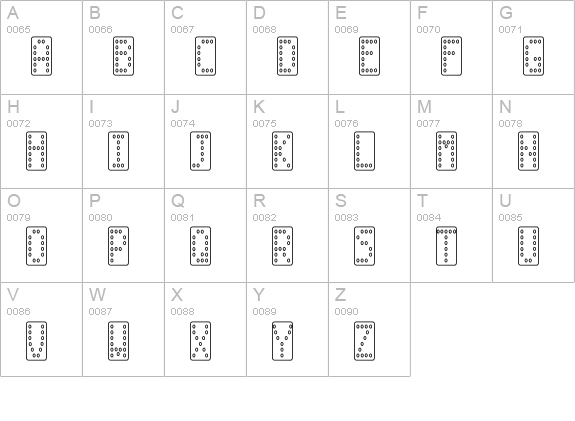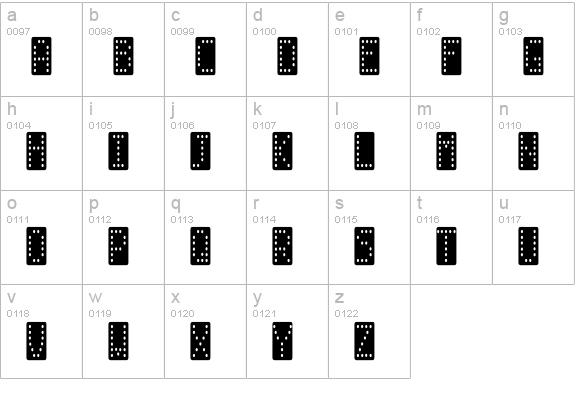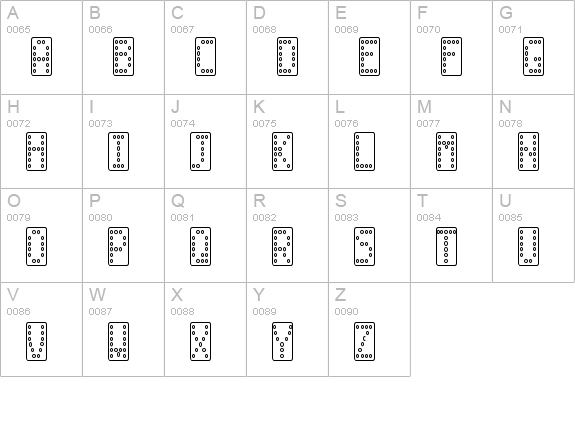
Domino Small Font is a modern and stylish typeface that adds a touch of sophistication to any design project. With its clean lines and sleek appearance, this font is perfect for creating professional and elegant designs. The small font size of Domino makes it ideal for use in body text, captions, and other small text elements. Best of all, Domino Small Font is completely free to download at FontsMarket.com. This means you can enhance your projects with this beautiful font without having to spend a dime. Whether you're working on a website, brochure, or any other design project, Domino Small Font is sure to elevate your work to the next level. Download it today and see the difference it can make in your designs!